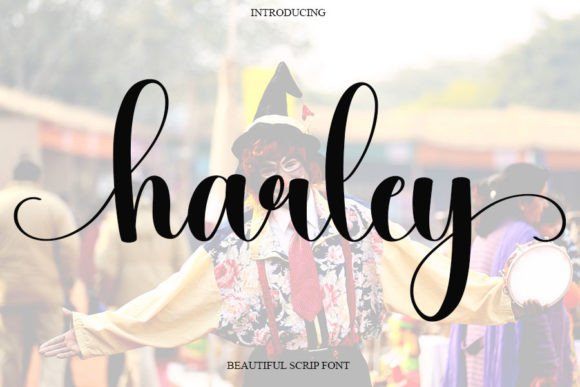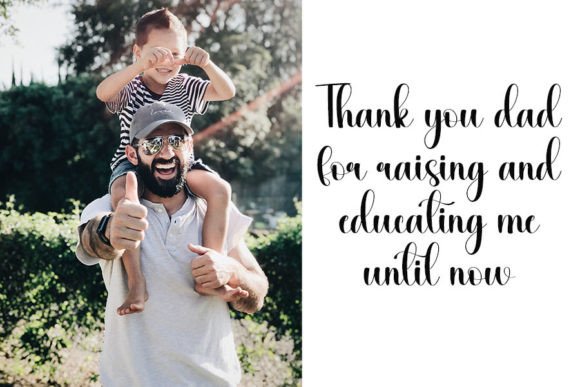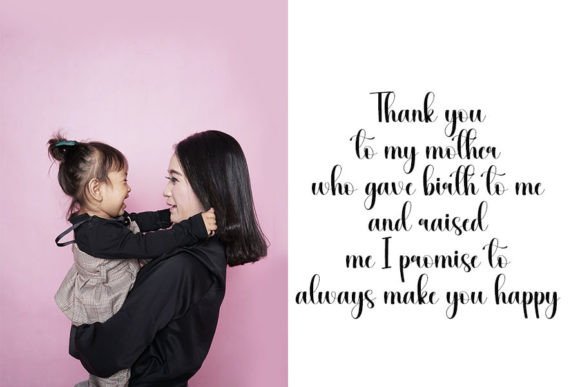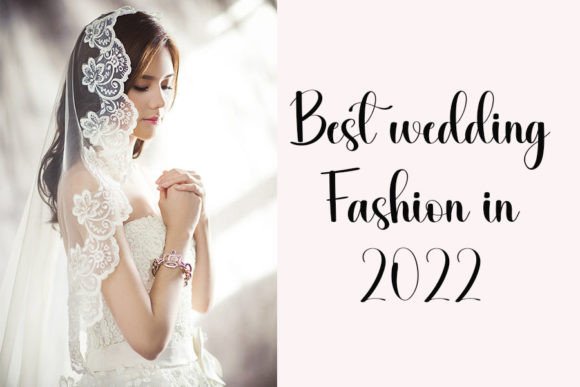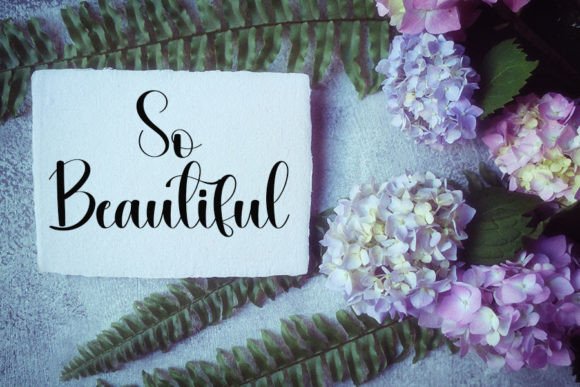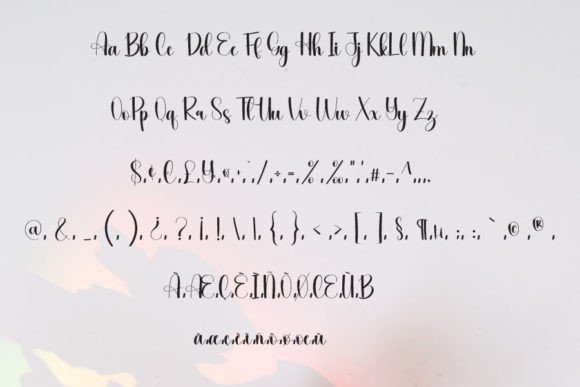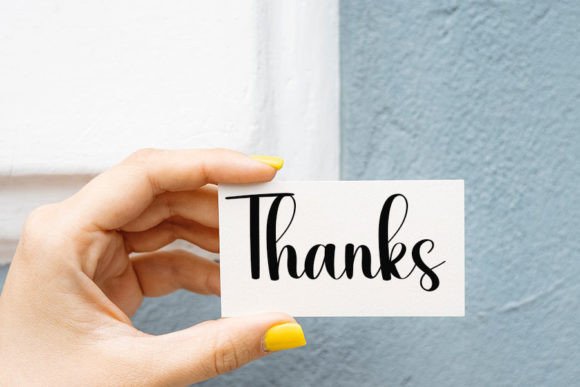
Harley Font
**Harley: A Sweet and Beautiful Handwritten Font for Luxury Designs**
Harley is a font that radiates sweetness and beauty, featuring characters that gracefully dance along the baseline. This font is the perfect choice for adding a touch of luxury and elegance to your design projects.
The charm of Harley lies in its sweet and beautifully handwritten characters, meticulously crafted to convey a sense of beauty and authenticity. Each letter dances along the baseline, creating a sense of movement and grace that enhances your design projects luxuriously.
This font’s versatility ensures it can adapt to various design contexts. You can use it to create luxurious branding materials, elegant invitations, captivating social media posts, or any creative endeavor that calls for a touch of sophistication and beauty.
In summary, Harley is more than just a font; it’s a source of sweetness and beauty that enhances your design projects. Its gracefully handwritten letters make it the perfect choice for infusing luxury and elegance into your work. With Harley, your creative projects will shine with a distinct and luxurious charm. Choose Harley, and let your designs captivate with its sweet and beautiful presence.